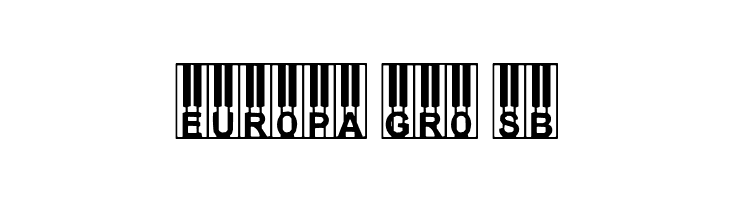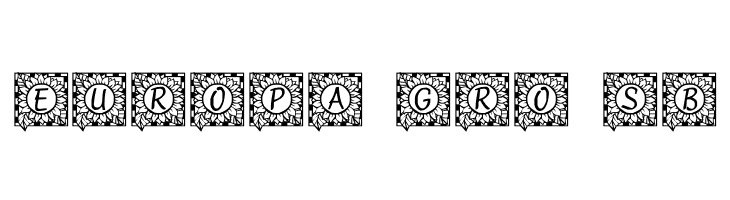
Ornate, decorative initials with intricate floral and cherubic designs.
A decorative font with characters embedded in piano key graphics.
A playful, decorative font with characters in heart-shaped balloons held by bunnies.
A whimsical font with cherub illustrations accompanying each character.
A decorative font with characters set within ornate heart shapes, combining serif elements with intricate designs.
A decorative font featuring letters within a Claddagh symbol design.
A decorative font with bold letters encased in intricate circular frames.
A decorative font with characters enclosed in vintage-style frames.
A playful, decorative font with characters encased in heart shapes topped with bears.
A decorative font with characters encased in sunflower-themed borders.